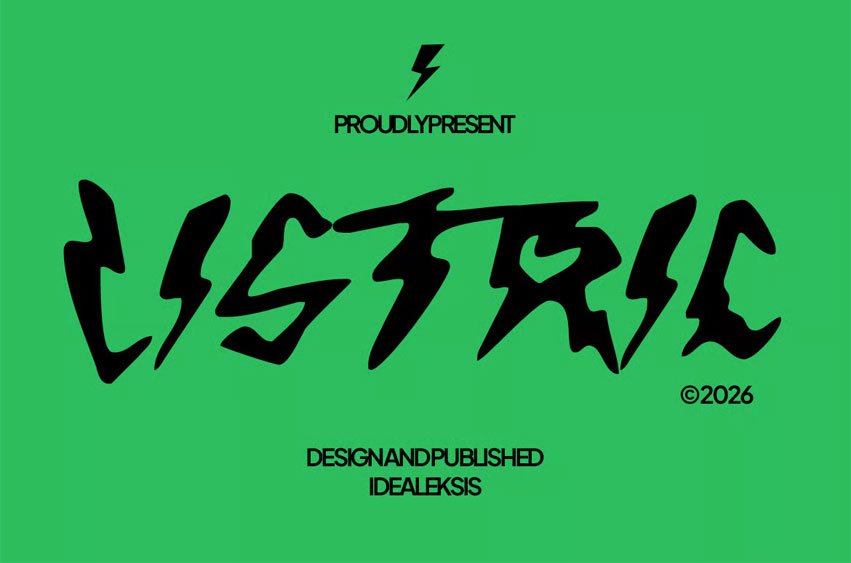
Listric Font
Listric Font is a bold, jagged display typeface infused with electrifying energy. Its sharp edges and angular strokes echo the power of a lightning bolt, giving the font a dynamic and rebellious character.
The design conveys strength, speed, and modern intensity, making it ideal for edgy branding, music posters, sports graphics, or any project that seeks to capture raw energy and bold impact.